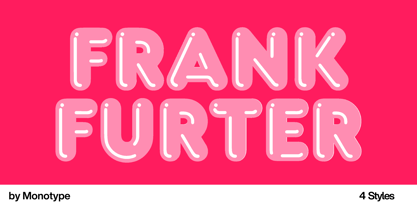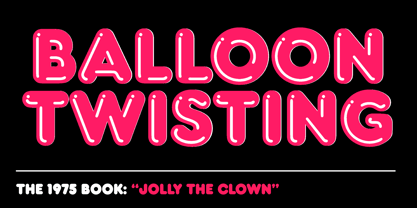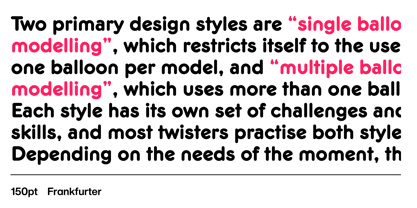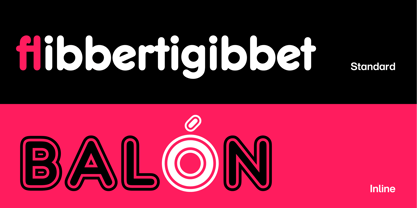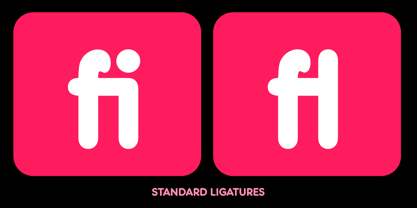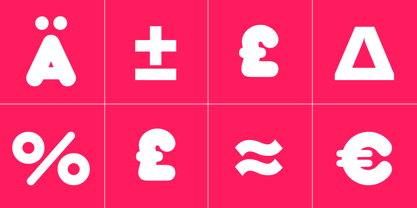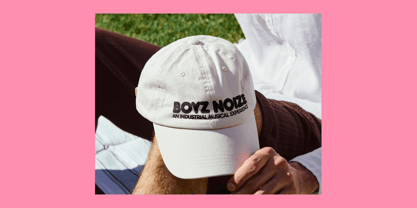
Frankfurter™
von ITC
Die Schriftfamilie Frankfurter wurde von Bob Newman, Alan Meeks, Nick Belshaw, Esselte Letraset entworfen und von ITC veröffentlicht. Frankfurter enthält 4 Stile und Familienpaketoptionen.
Frankfurter™, drawn by several Letraset designers, is a lighthearted design in extra-large pants. Originally, it could be found in everything from display ads to film titling. Today, Its bold, rounded shapes and playful spirit, bring a sense of whimsy to on-screen typography.
Frankfurter’s soft curves, open counters, and generous x-height make it a standout among children’s UI fonts used in learning games and toy packaging. As design strategies increasingly blend learning with playful storytelling within the edutainment sector, Frankfurter’s visual warmth and legible characters have also secured its home in digital learning experiences.
Whether it lights up math games, captions storytelling modules, or labels interactive features, Frankfurter offers a visual tone that’s both fun and reassuring. Its design strikes the perfect balance between clarity and delight, making it an excellent choice for creative teams focused on building an approachable, lasting brand.
Designer: Bob Newman, Alan Meeks, Nick Belshaw, Esselte Letraset
Herausgeber: ITC